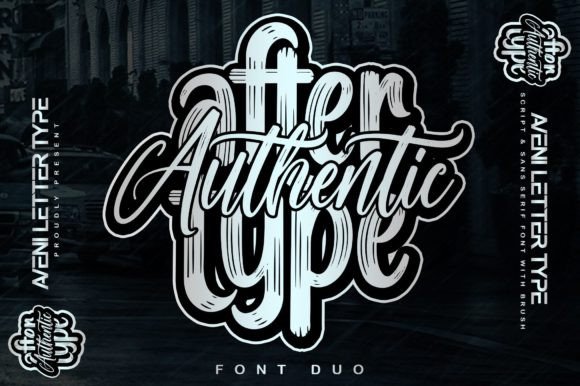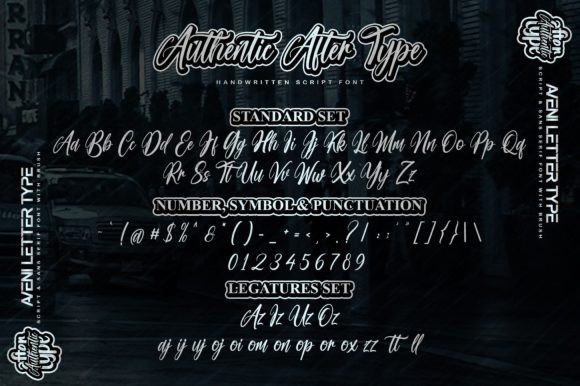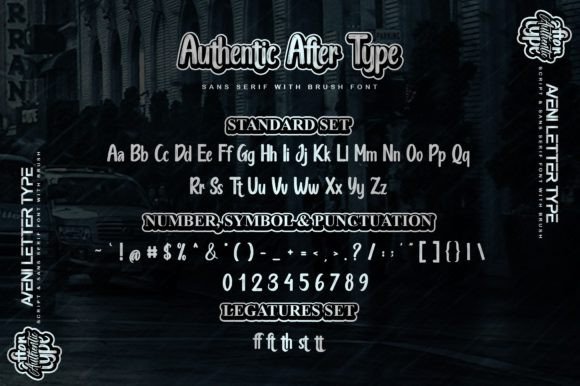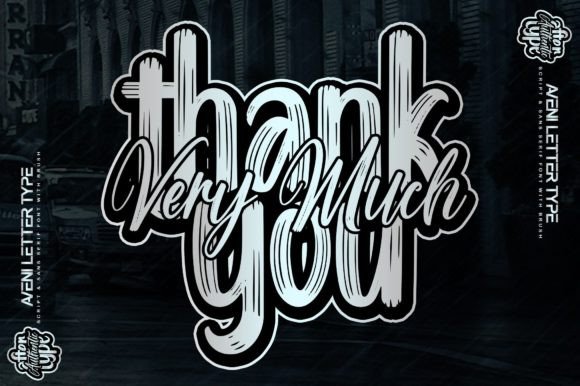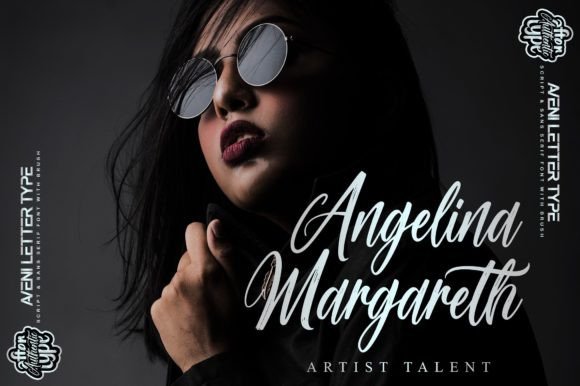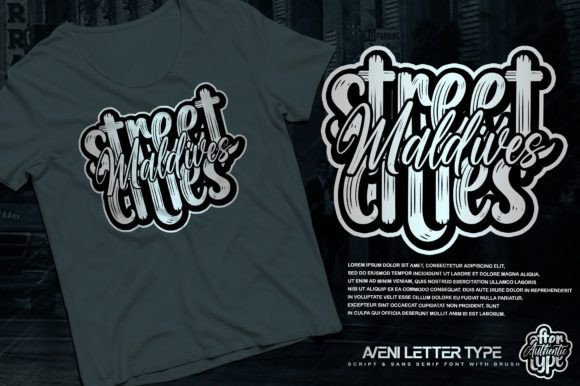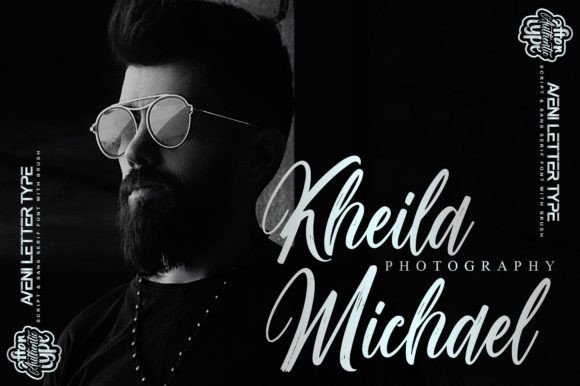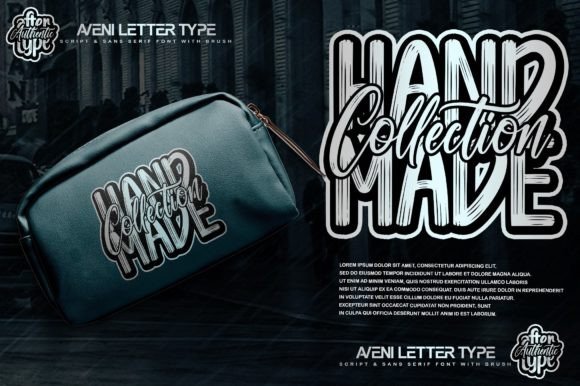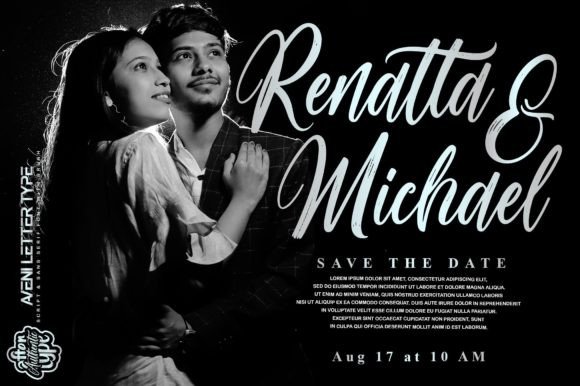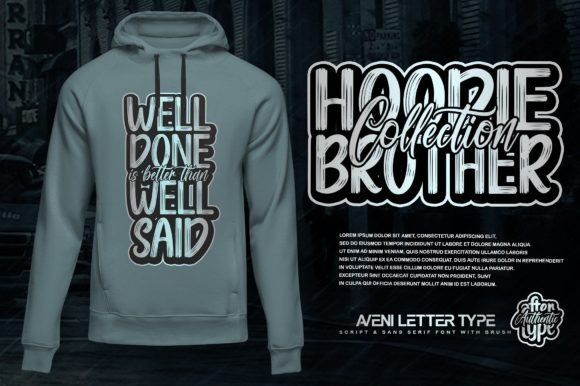
Authentic After Type Font
Introducing Authentic After Type, a dynamic font duo consisting of both a script and sans serif typeface. This stylish duo, characterized by impeccable kerning, is expertly designed to elevate your creations and ensure they look truly amazing. Versatile and visually appealing, Authentic After Type opens up a world of creative possibilities across various design projects.
The script font exudes a unique charm, while the sans serif counterpart provides a clean and modern aesthetic. Together, they create a harmonious balance that can be seamlessly incorporated into a wide range of ideas and applications.
Consider Authentic After Type for your apparel branding to infuse your products with a trendy and stylish identity. Its neat kerning ensures a polished and professional look, making it perfect for daily quotes, tote bag or handbag branding, product packaging, headers, posters, merchandise, wedding invitations, social media graphics, and greeting cards.
The font duo is meticulously crafted to enhance the visual appeal of your designs, offering flexibility in expressing creativity across diverse platforms. From the bold and expressive script for impactful headers to the sleek sans serif for a minimalist touch, Authentic After Type adapts effortlessly to your design needs.
Whether you’re creating a compelling social media post or designing elegant wedding invitations, this font duo has you covered. The versatility of Authentic After Type allows it to be your go-to choice for a wide array of design projects, providing consistency and aesthetic appeal.
In conclusion, Authentic After Type is more than just a font duo; it’s a creative companion that empowers you to bring your ideas to life with style and authenticity. Elevate your designs in apparel branding, quotes, packaging, and more with the dynamic and well-kerned aesthetics of Authentic After Type. Get ready to make your creations stand out and leave a lasting impression across various visual mediums.